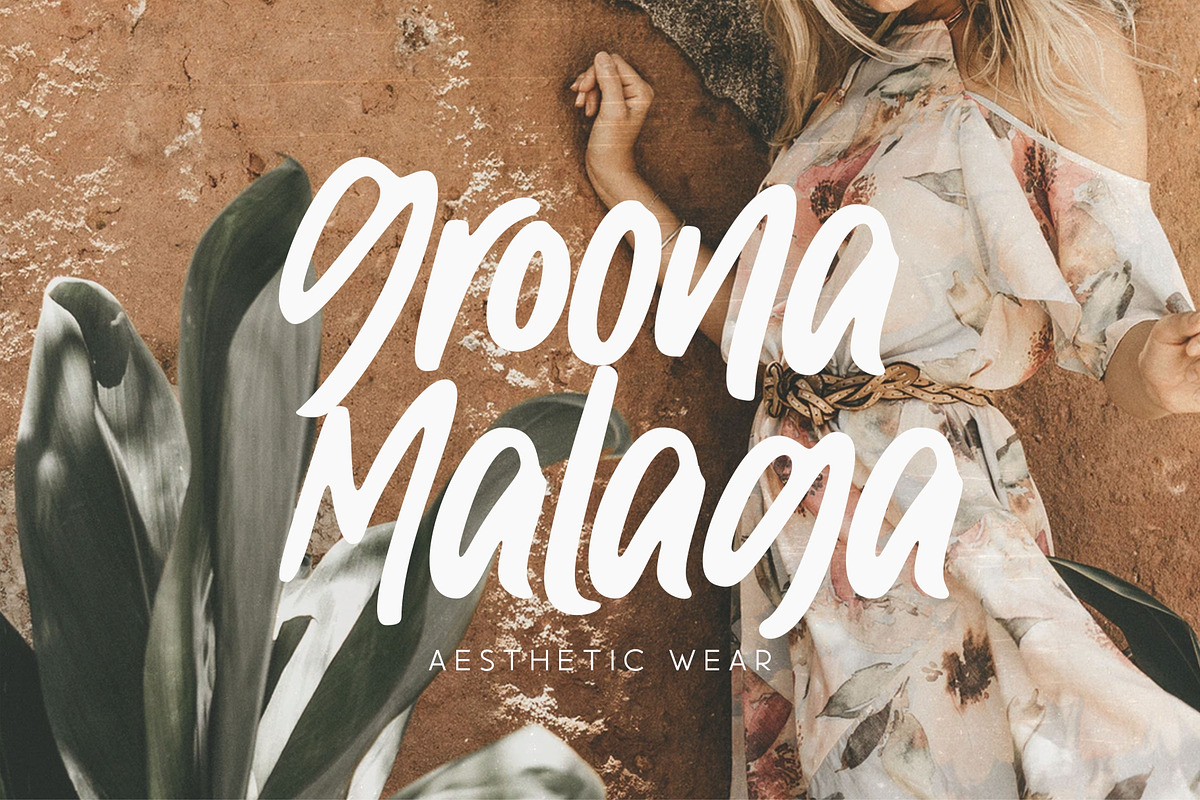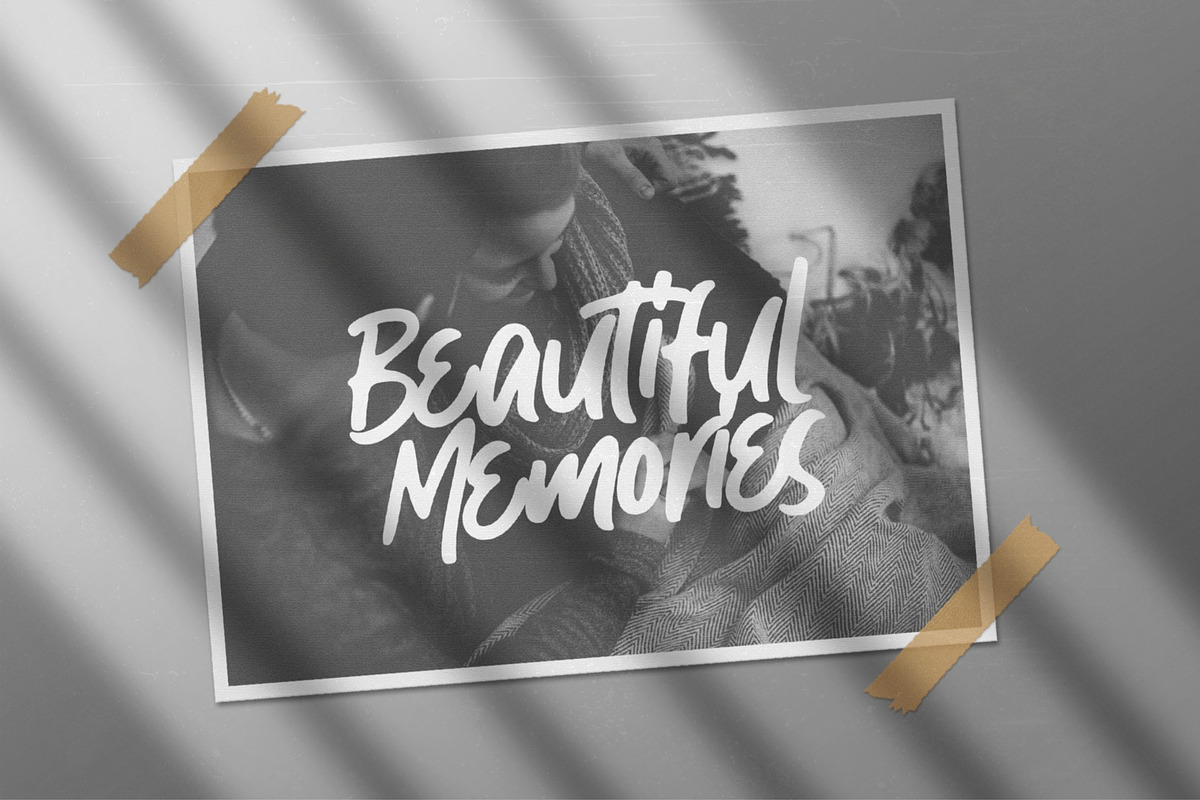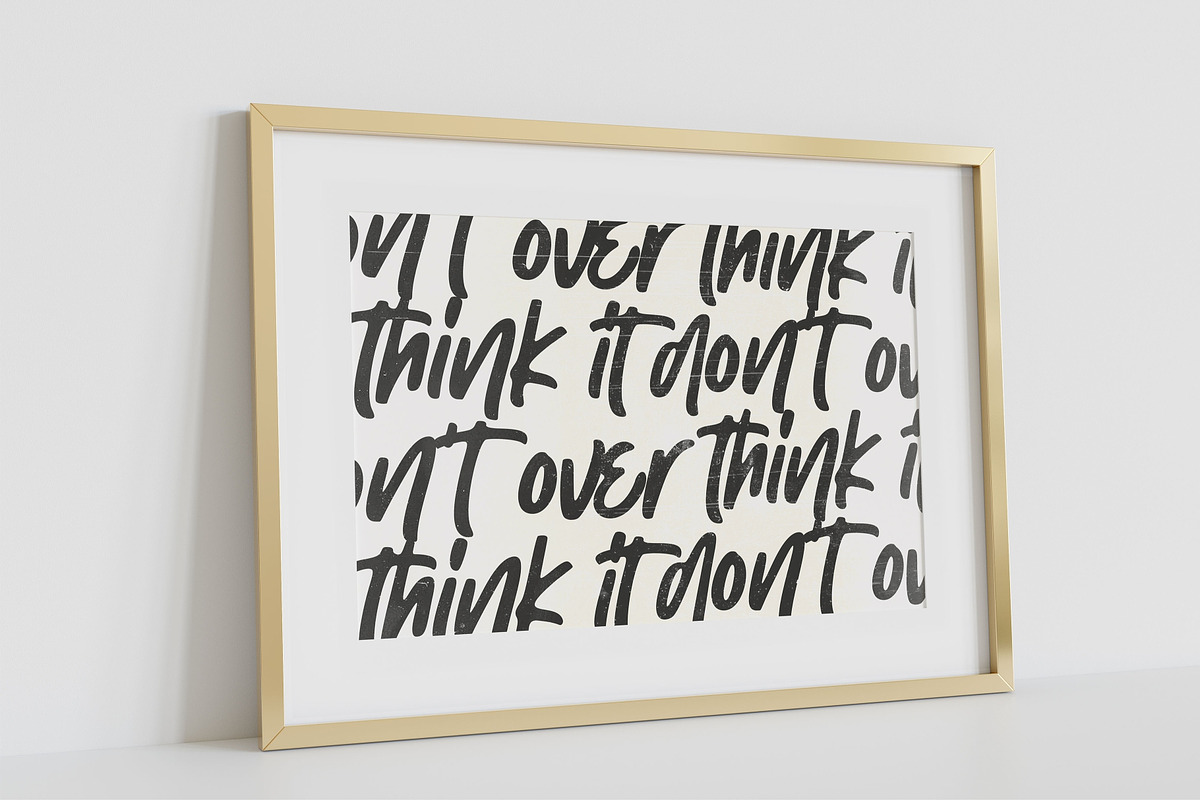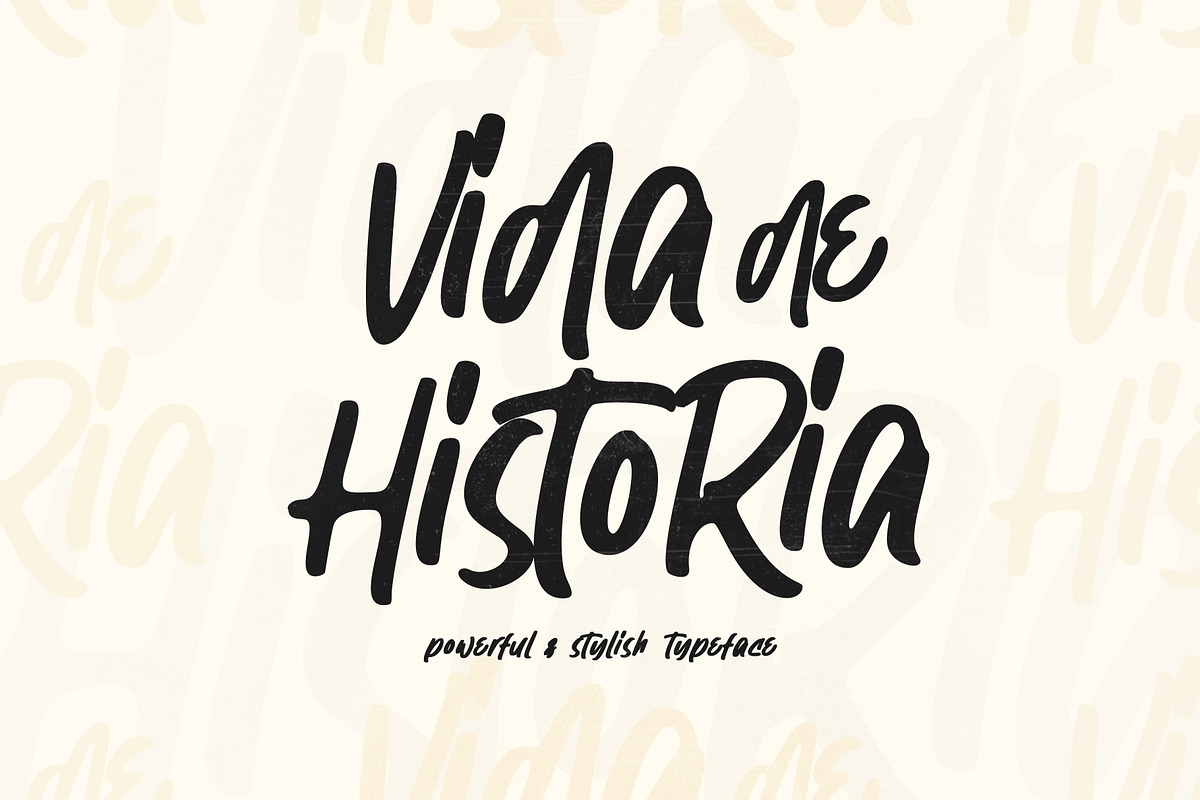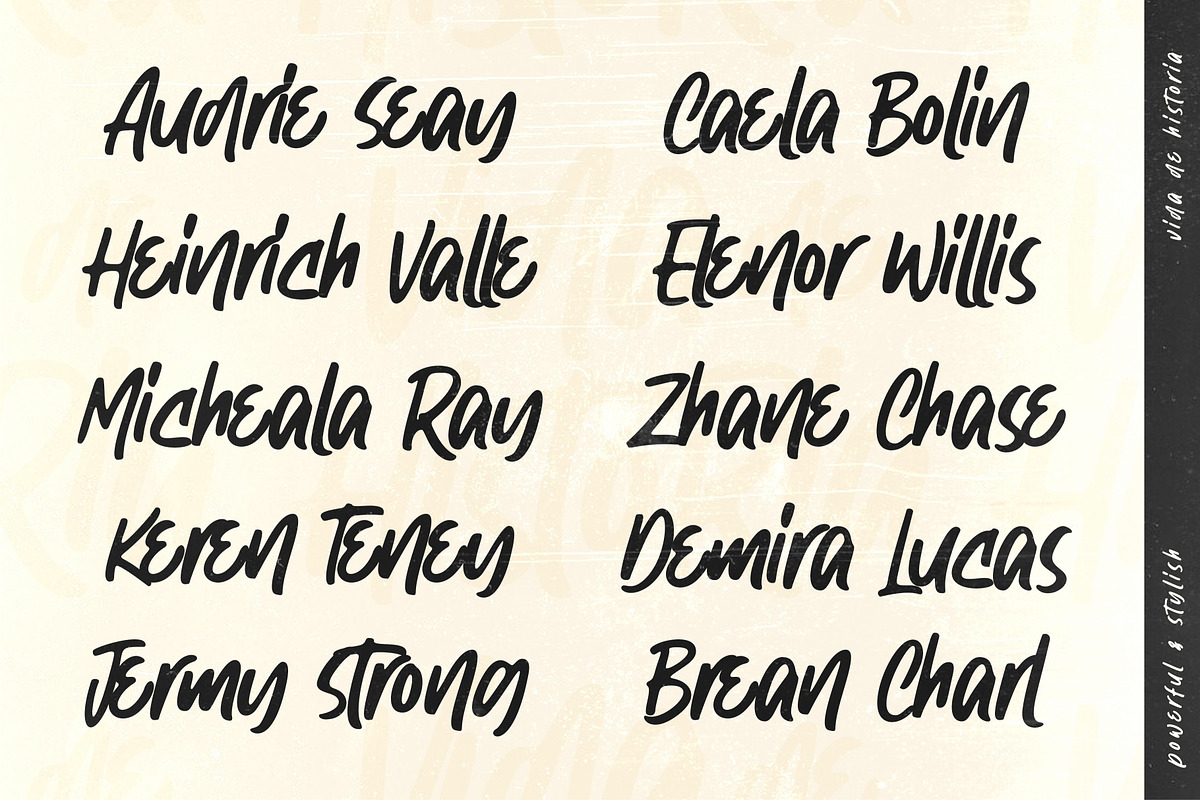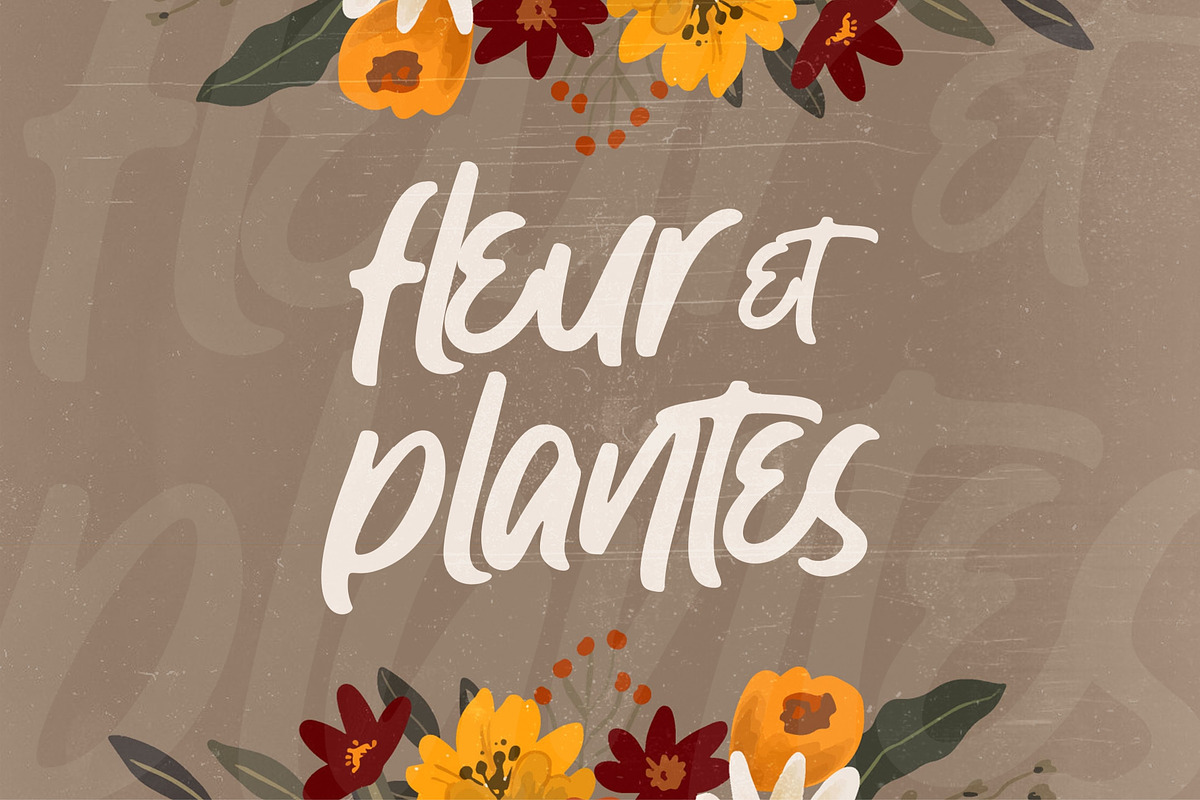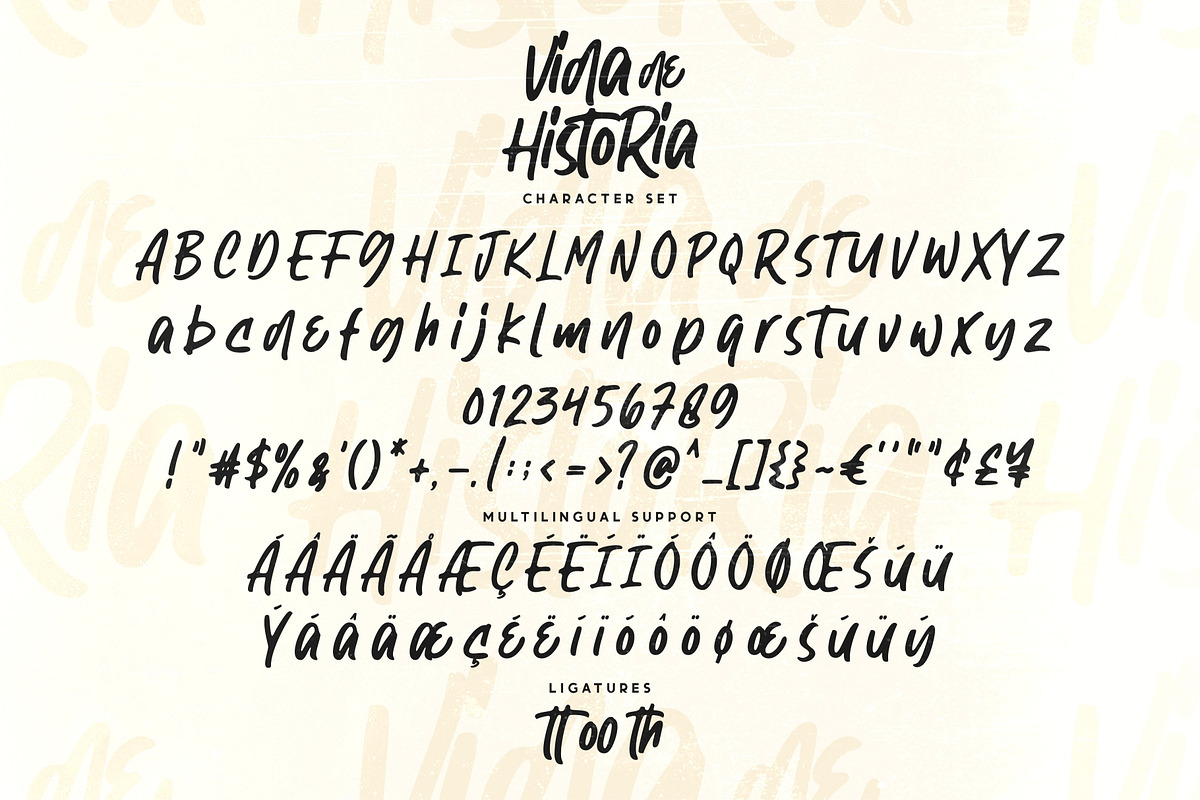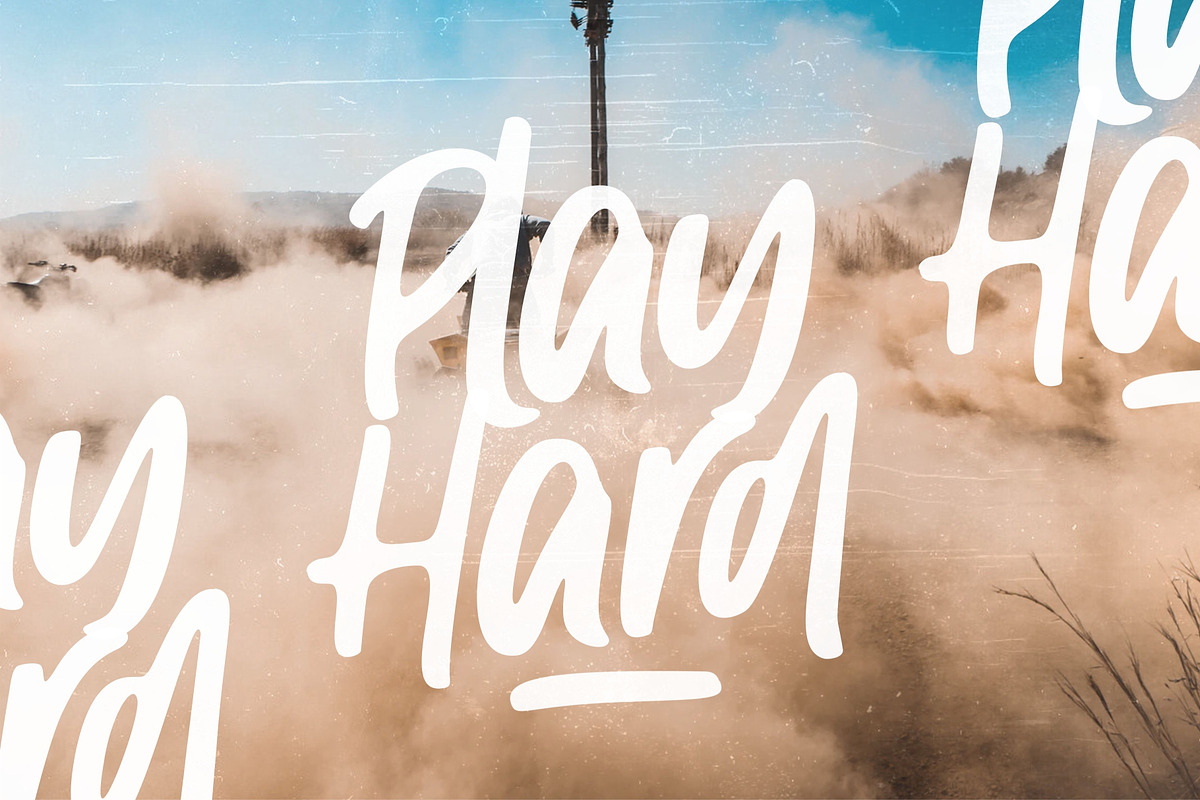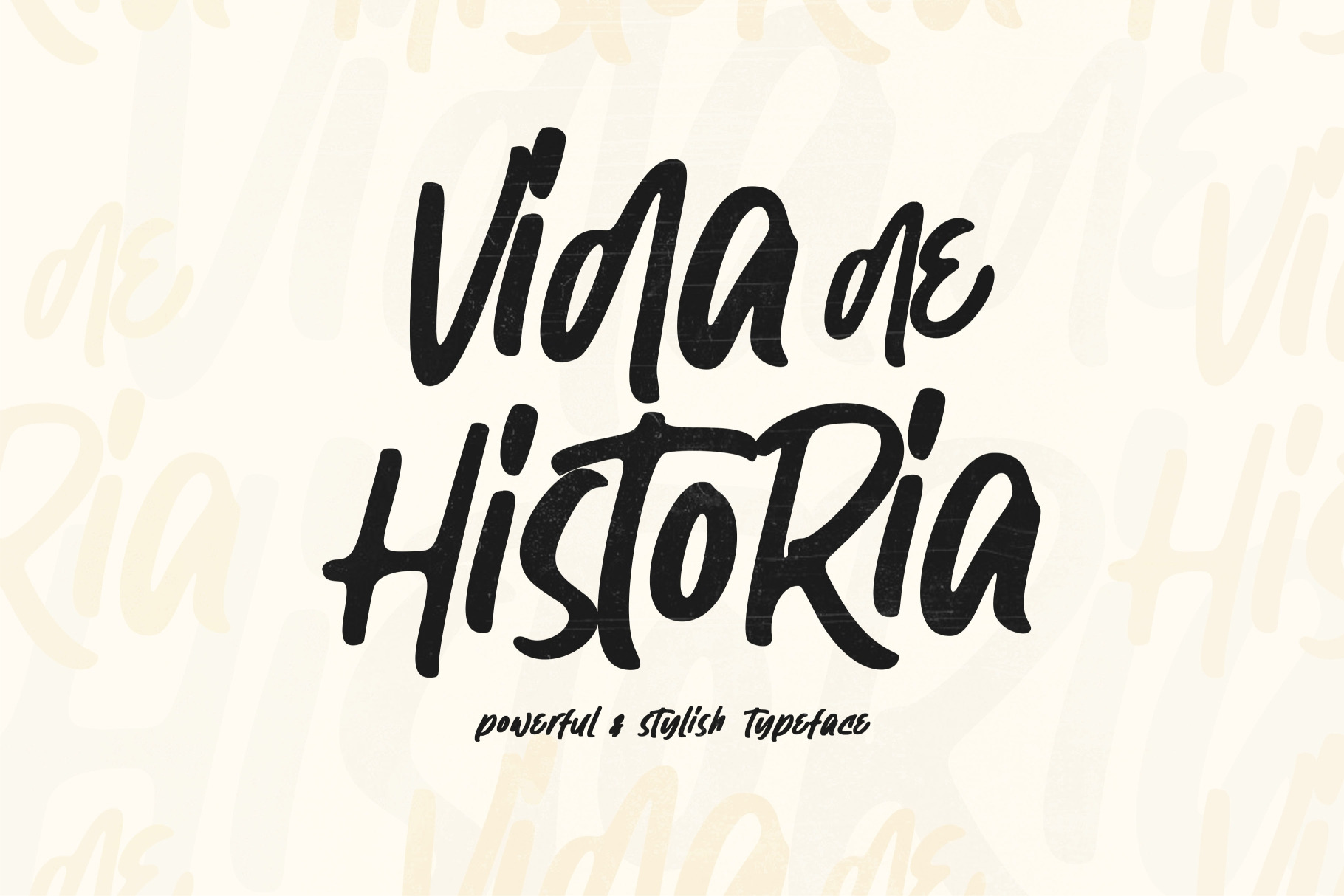
Vida de Historia - Stylish Typeface
Introducing Vida de Historia - Stylish Typeface
Vida de Historia combines attractive curves with a fresh urban edge; delivering a stylish script which is guaranteed to add an eye-catching appeal to your logo designs, brand imagery, quotes, product packaging, merchandise & social media posts
- Uppercase & Lowercase letters
- Support for 17 Languages: Afrikaans Albanian Catalan Danish Dutch English Estonian Finnish French German Icelandic Italian Norwegian Portuguese Spanisch Swedish Zulu